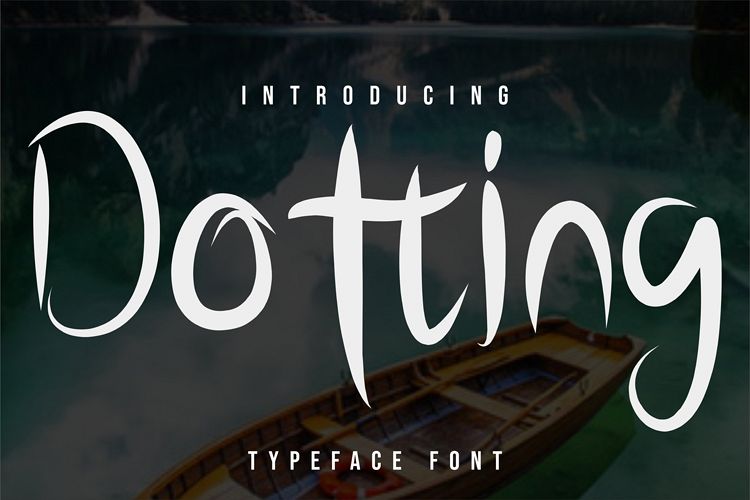
Dotting
Dotting font is a letter shape with brush style,can be used in all designs, suitable for cover books, magazines, films and others ...
And also supports multiple languages dan ligature